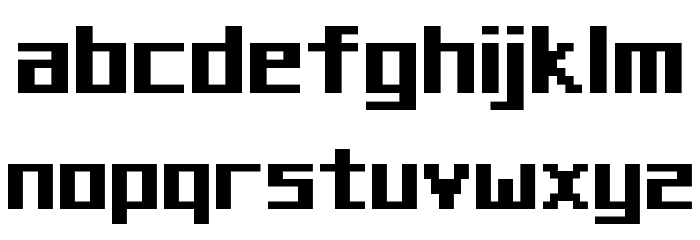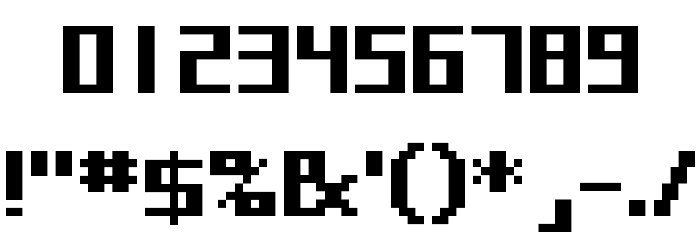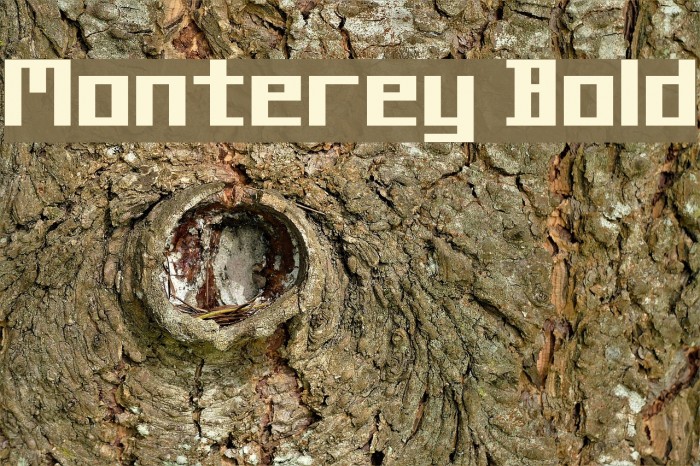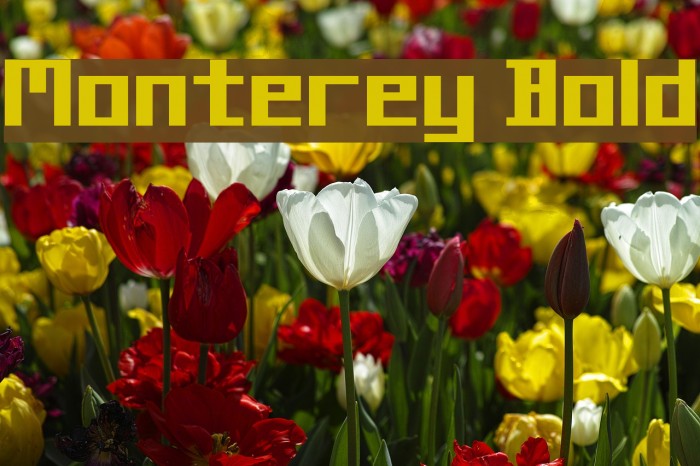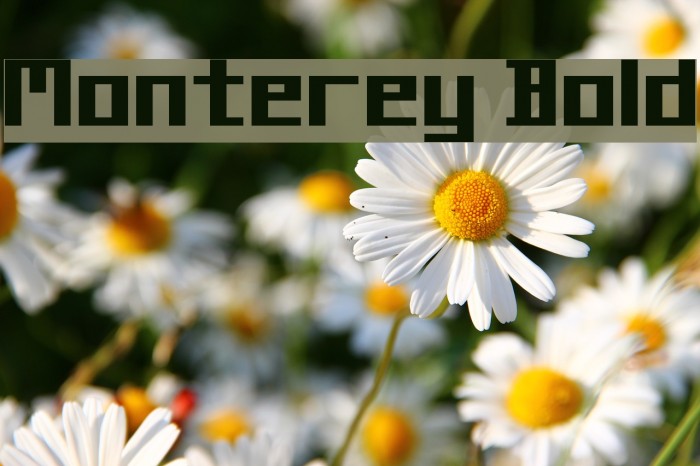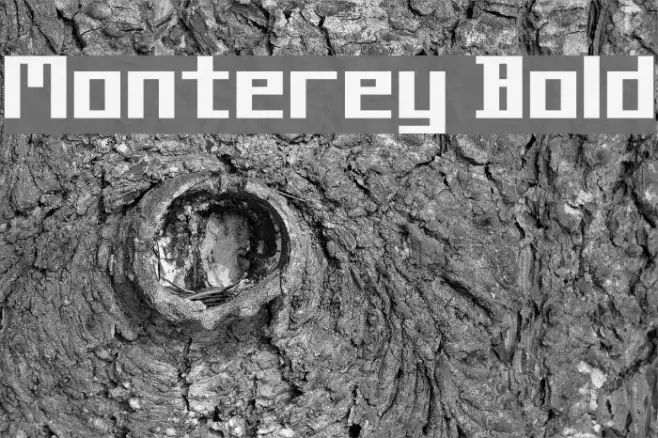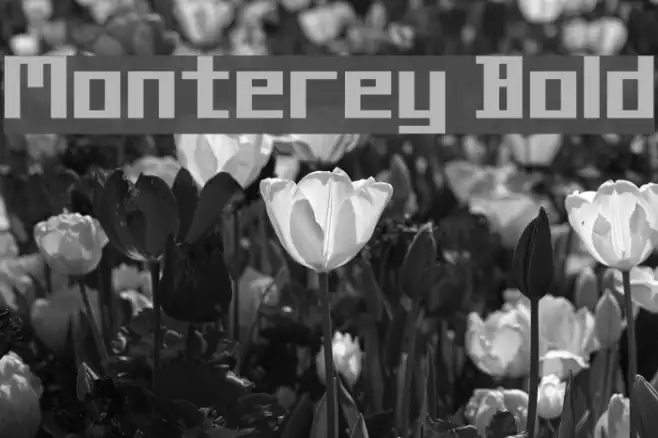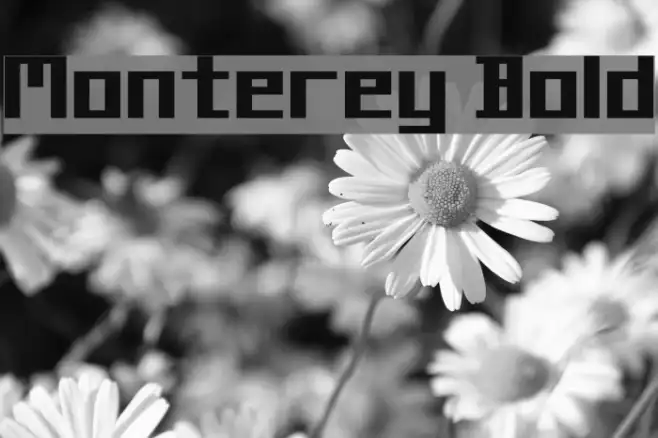
Monterey Bold Font
This font features a bold, blocky design with a pixelated aesthetic reminiscent of early digital displays and retro video games. The characters are uniformly structured with a consistent width, giving it a monospaced appearance. The uppercase and lowercase letters maintain a similar height, enhancing its geometric and mechanical feel. The numbers and special characters are designed to match the overall style, ensuring a cohesive look across all glyphs. Its bold strokes and clear edges make it highly legible, even at smaller sizes, while the pixelated style adds a nostalgic charm.
- Proposed Projects: Ideal for retro-themed designs, video game graphics, digital art projects, and any creative work that requires a nostalgic or tech-inspired look.
- Overall Style: Retro, Digital
- Use Case: Headlines, Logos, Digital Art